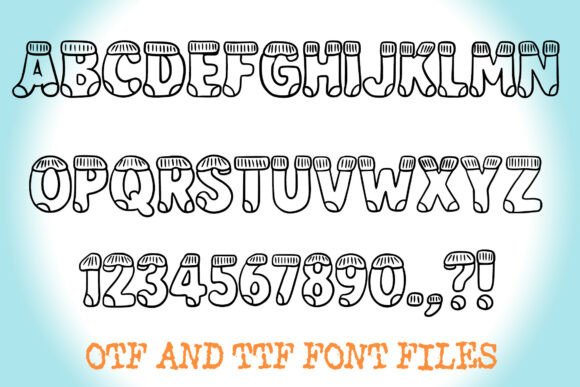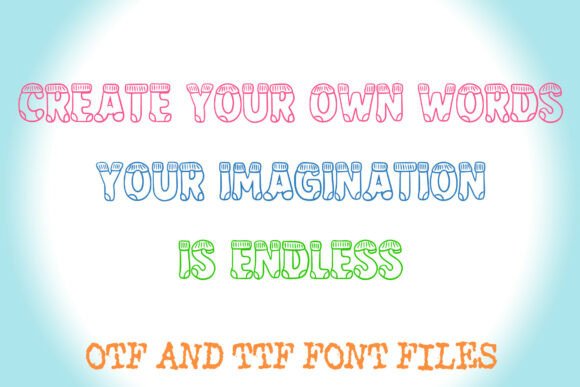
The Cozy Charm of Fabric Socks Font: A Designer’s Delight
I’ll never forget the moment I stumbled upon the Fabric Socks font while working on a whimsical children’s book project. I was on a mission to find the perfect typeface that would bring warmth and playfulness to my illustrations, but nothing seemed quite right. That was until I discovered Fabric Socks – a delightful decorative font that instantly transported me to a world of cozy comfort and handmade charm.
A Personal Review: What I Love and What to Consider
- ✅ Unique, handcrafted aesthetic that adds a touch of homemade sweetness to any design
- ✅ Rounded, pillowy shapes give the letters a soft, approachable personality
- ✅ Perfect for children’s books, craft projects, packaging, and branding for cozy apparel or home goods
- ✅ Whimsical and friendly aesthetic that’s sure to delight
- ⚠️ Limited use in formal or professional designs, as it may come across as too playful
- ⚠️ May not be the best choice for very small text sizes, as details may get lost
- Experiment with OpenType features, such as glyphs and stylistic alternates, to add variety to your text
The Story Behind Fabric Socks Font
The Fabric Socks font was designed with the intention of capturing the warmth and coziness of handmade crafts. The designer, inspired by the joy of knitting and sewing, set out to create a typeface that would evoke a sense of nostalgic comfort and playful fun. With its unique, sock-like characters and charming striped cuffs, Fabric Socks is the perfect choice for designers looking to add a touch of homemade charm to their projects.
Q: What is the Fabric Socks font best used for?
A: The Fabric Socks font is best used for children’s books, craft projects, packaging, and branding for cozy apparel or home goods.
Q: Is Fabric Socks a script font?
A: No, Fabric Socks is a decorative, sans-serif font with a unique, handcrafted aesthetic.